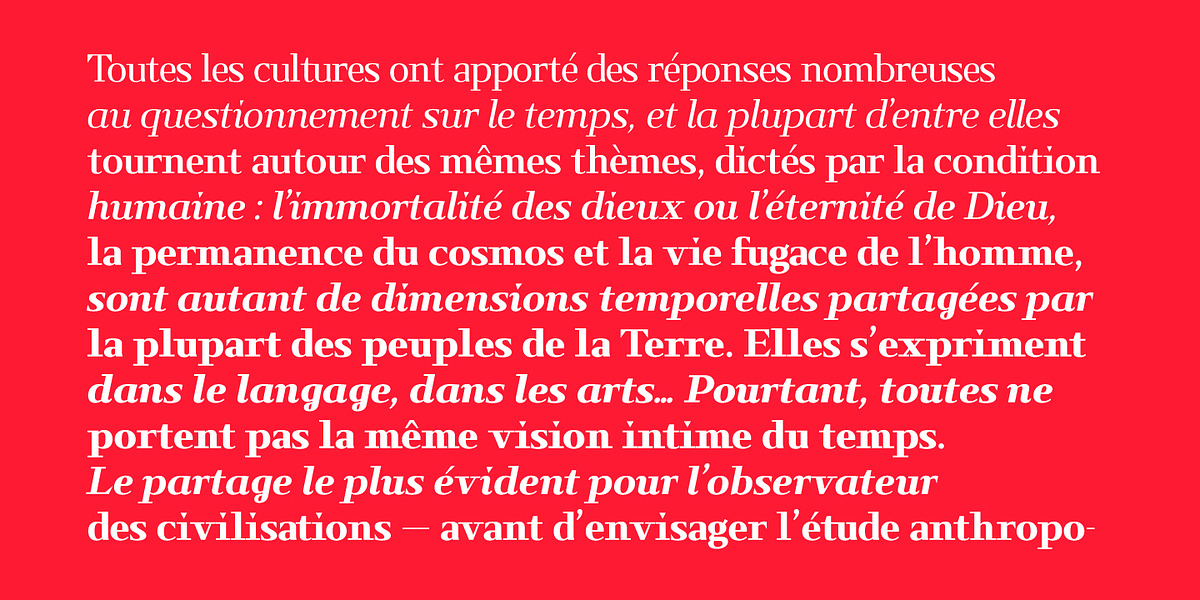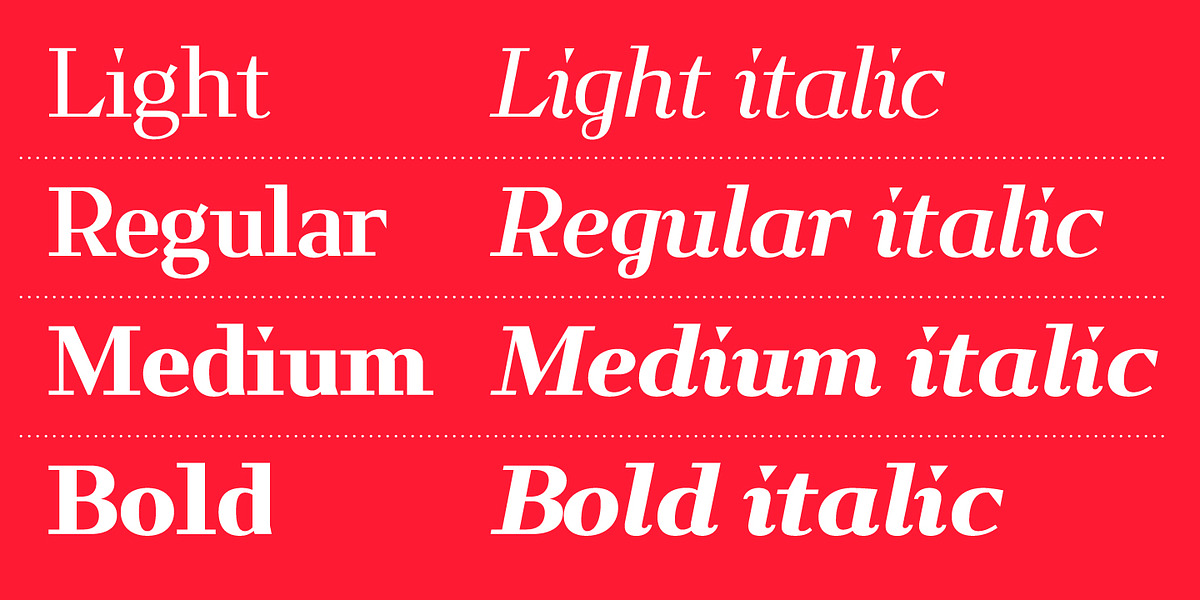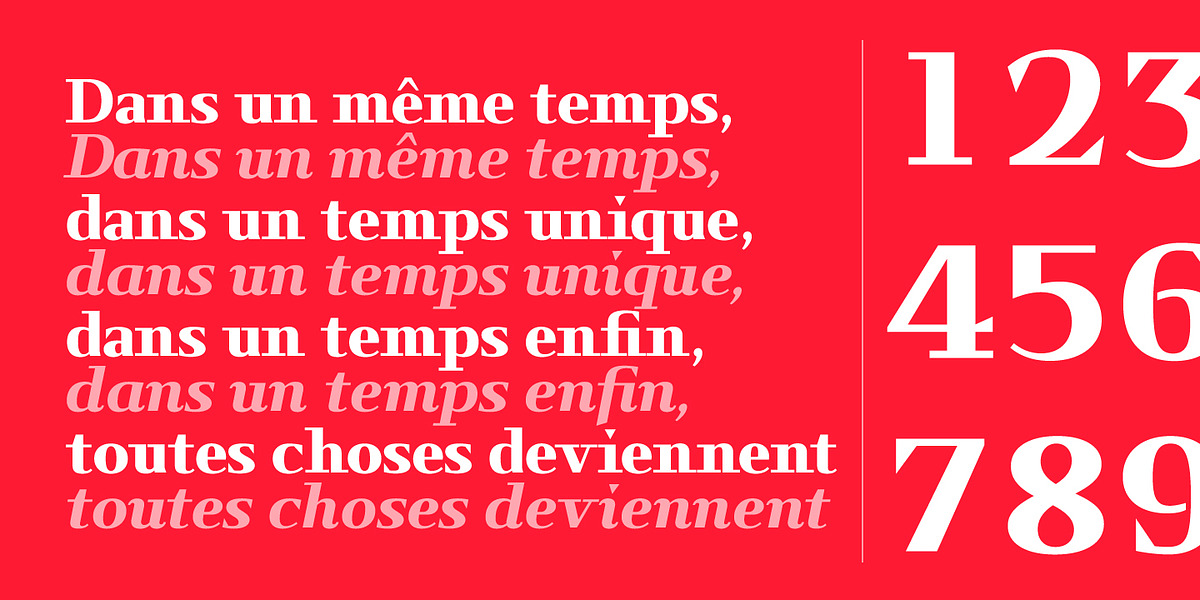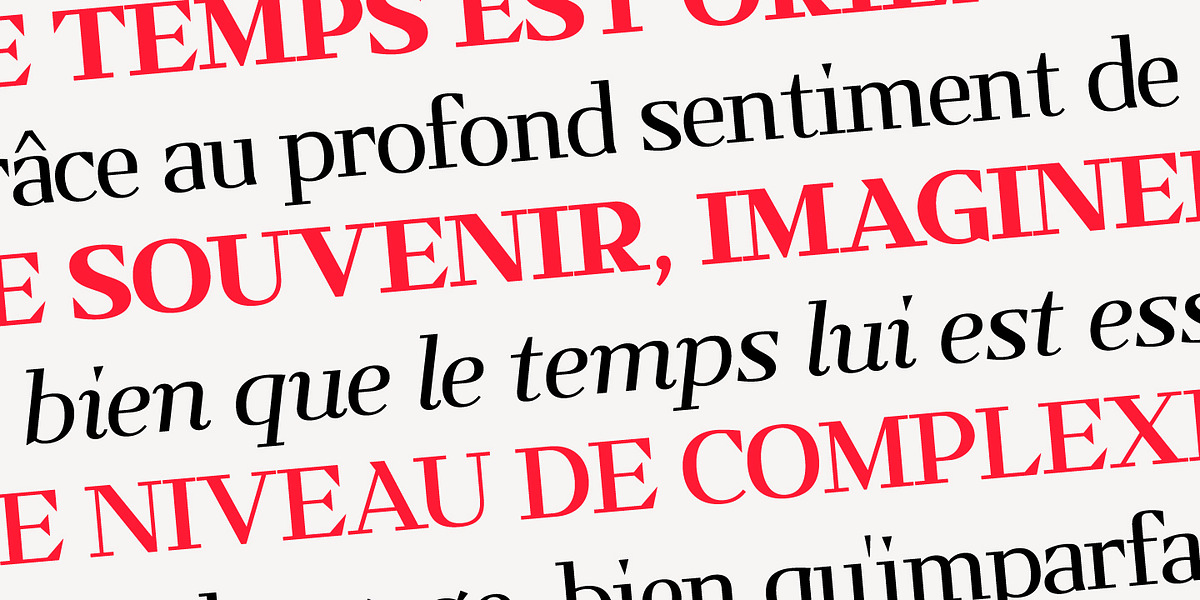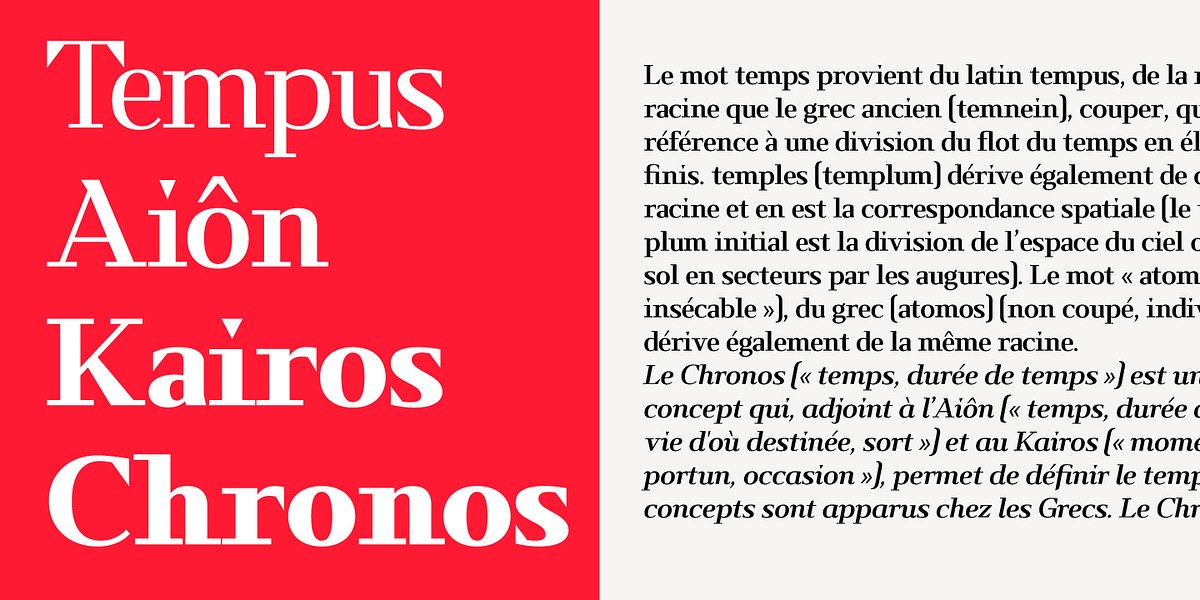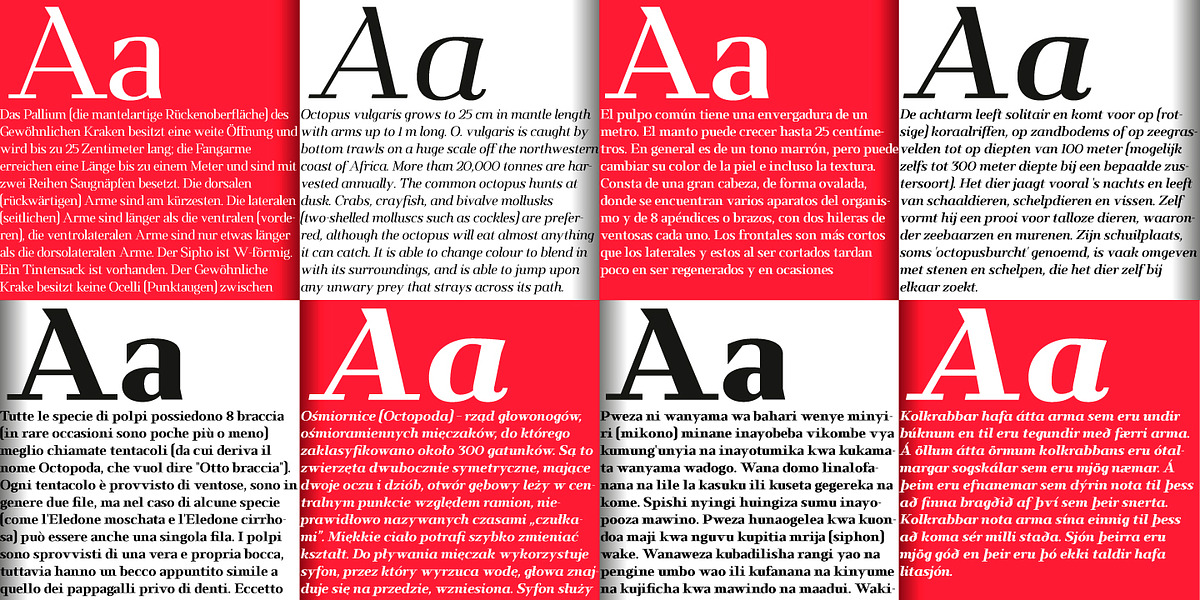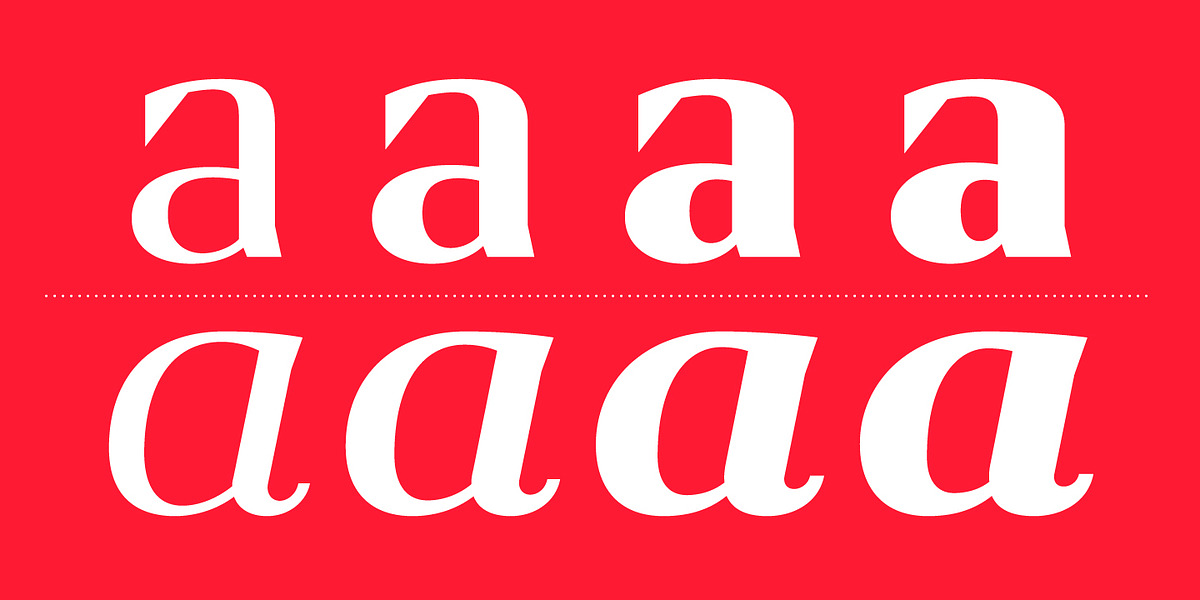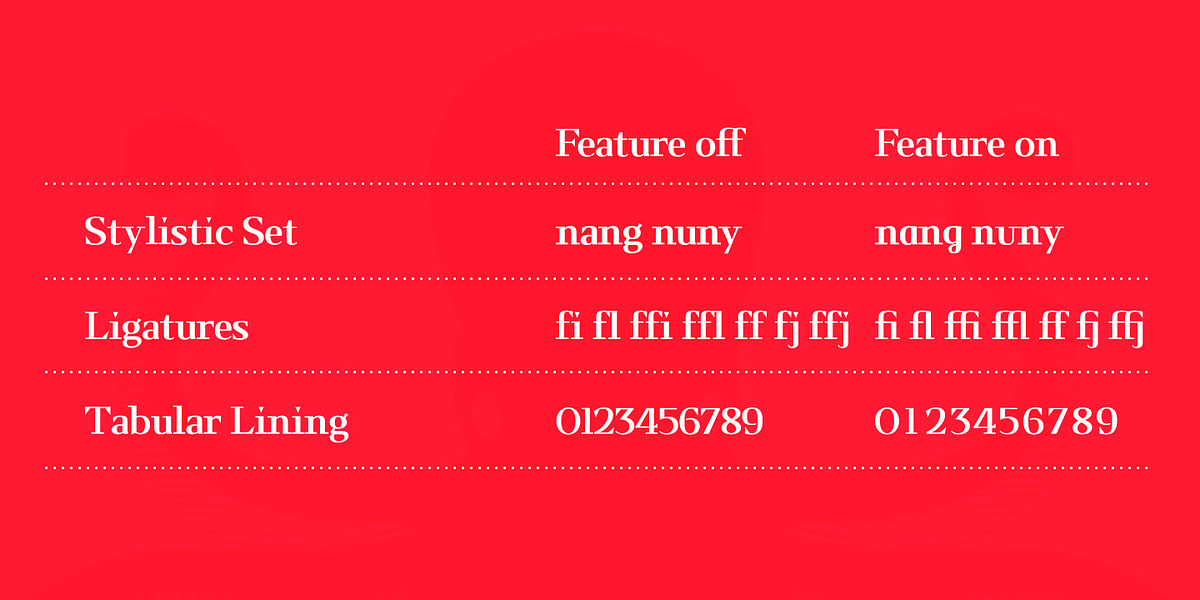
Kalpa
Kalpa is a didone serif font inspired by the sharp and sleek designs of vintage diving watch dials. It comes in four weights with italics, making it versatile for various applications. The font's strong look and alternate character designs make it suitable for headlines, logos, branding, packaging, publications, and websites.